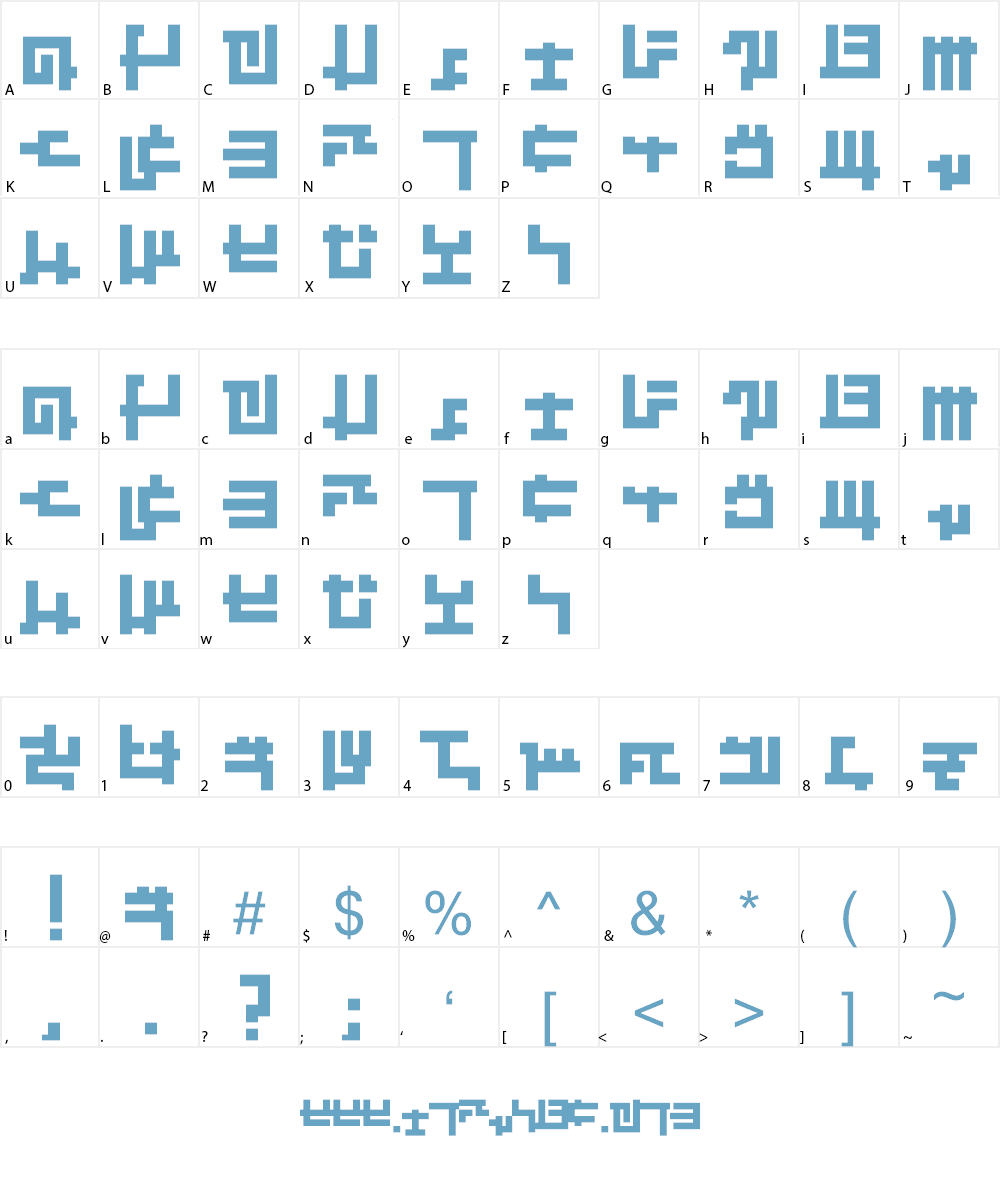
This is my final major project for university, a look in cryptic information and secrecy. Use this font decoratively and sparsely to hide information in public from anyone and everyone. When placed together correctly, the standard characters (A-Z, 1-9) all join together to form one cohesive piece.